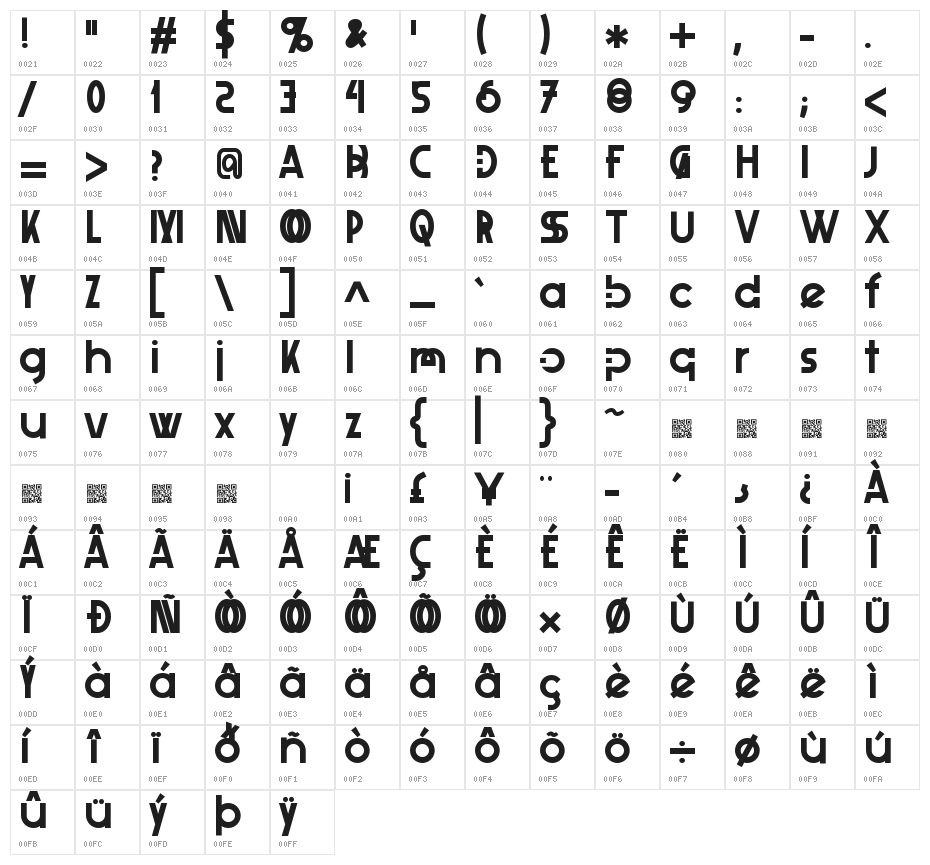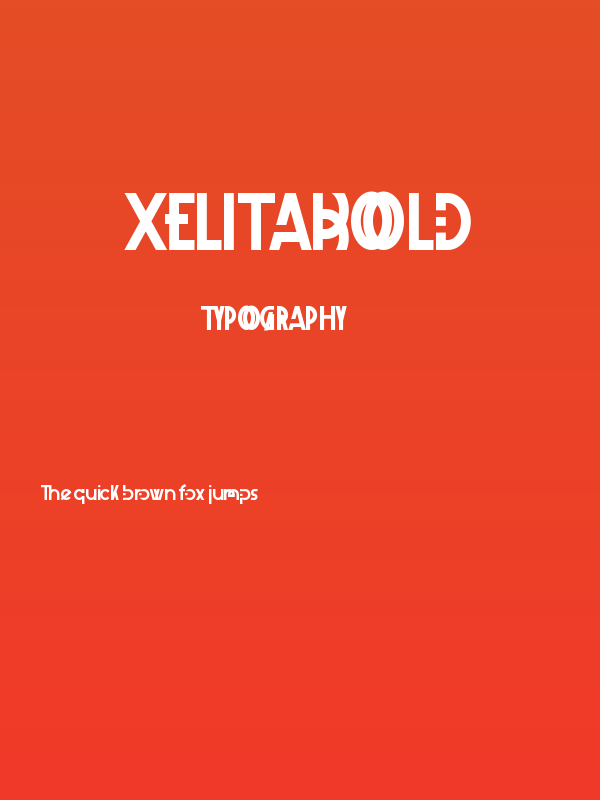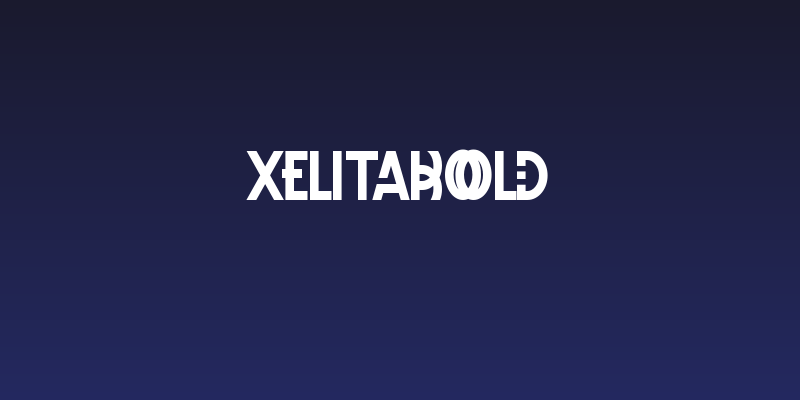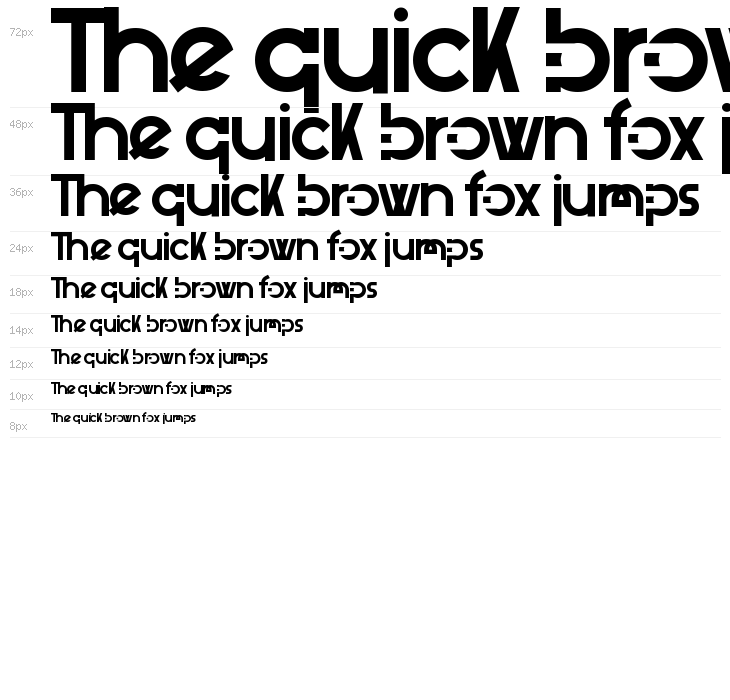
XelitaBold Font
XelitaBold Description
This bold and striking font features a highly geometric and modern design, characterized by its thick strokes and unique letterforms. The uppercase letters exhibit a strong presence with their wide, angular shapes, while the lowercase letters maintain a consistent style, offering a cohesive look. The numerals are equally bold, ensuring readability and impact. Special characters are designed to complement the overall aesthetic, making this font suitable for attention-grabbing designs. Its distinct style is perfect for projects that require a contemporary and assertive visual identity.
| Proposed Projects | Ideal for branding, posters, headlines, and any project needing a bold, modern look. |